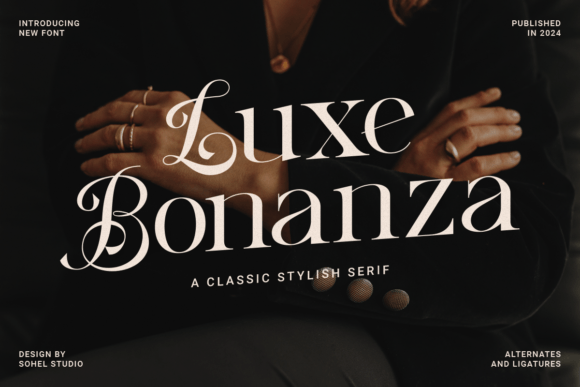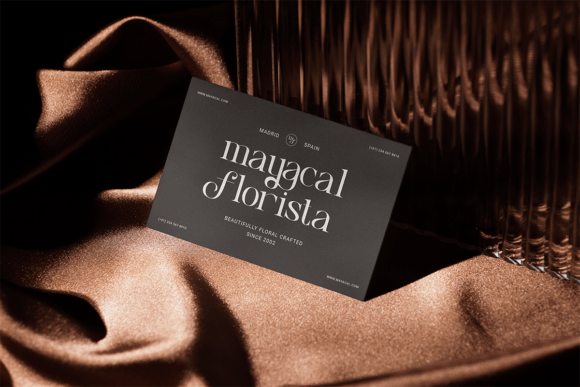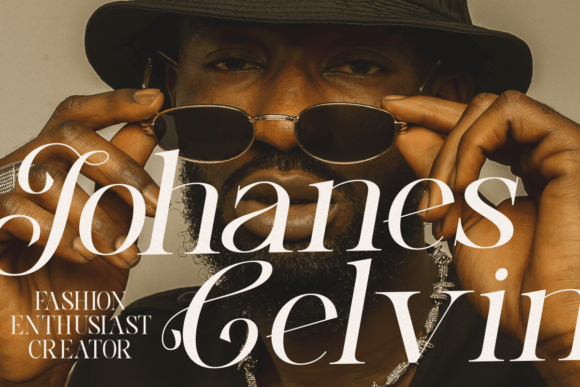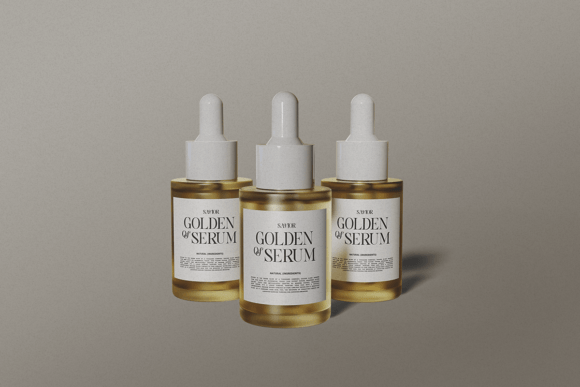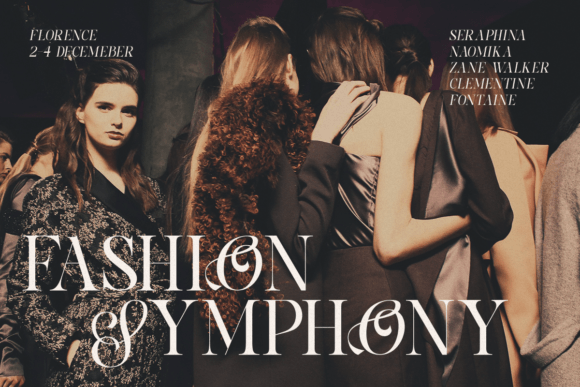
Luxe Bonanza Font
Luxe Bonanza is a stylish serif typeface exuding sophistication and charm. Its refined letterforms and subtle details capture attention, making it perfect for editorial design, branding, and luxury packaging. With a timeless elegance and versatile presence, Measseon elevates any project with its distinctively classy aesthetic.